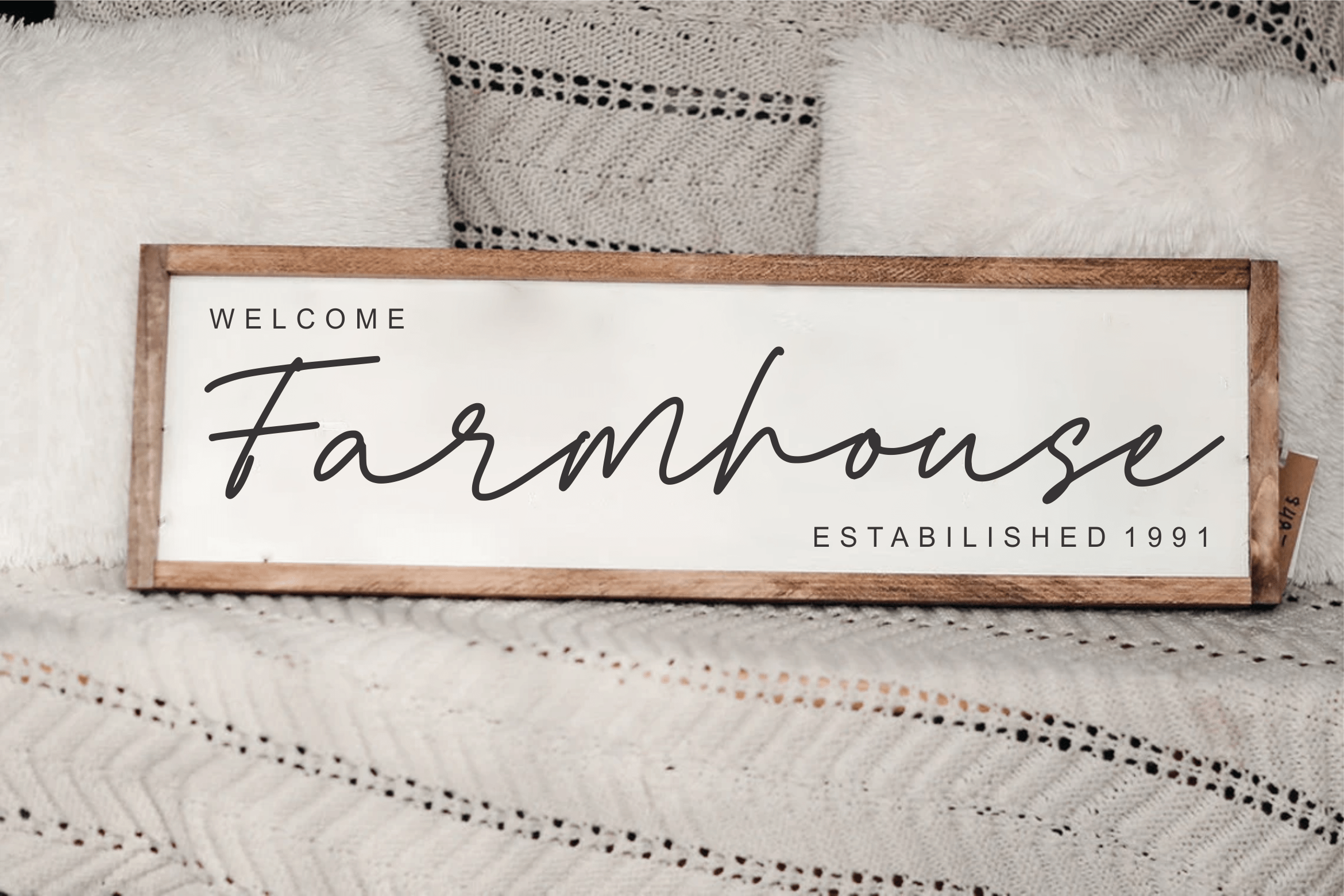
Dancing Promise Font
Dancing Promise Handwritten Font is a slim and exquisite handwritten font. Stylish, graceful, and flowing, this font will definitely elevate the look of any of your beautiful creations while keeping them grounded and natural.